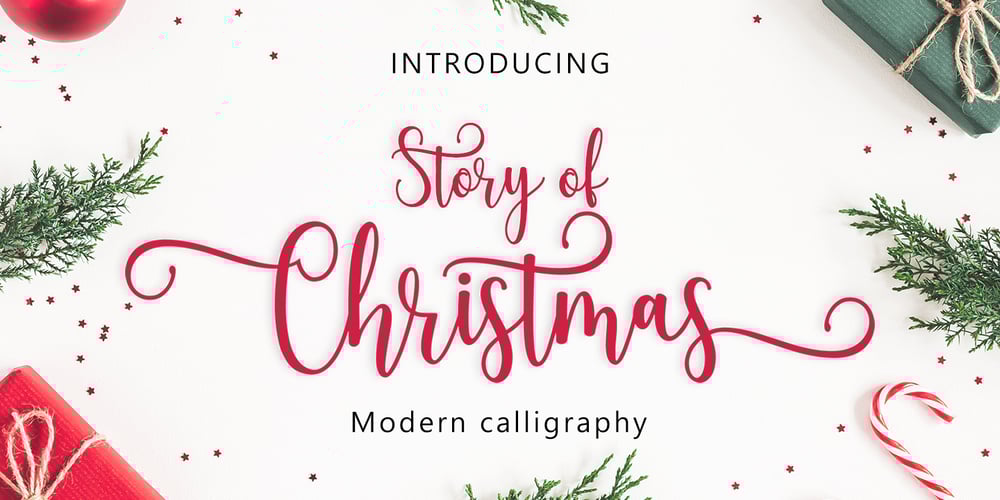
Story of Christmas Font Family was designed by Kamaruddin Kamaruddin, Amar Lettering and published by Amarlettering. Story of Christmas contains 1 styles and family package options. Story of Christmas is a sweet handwritten font. It will add a unique and romantic touch to your Christmas projects! This font is PUA encoded which means you can access all of the cute glyphs and swashes with ease! It also features a wealth of special features including alternate glyphs and ligatures.